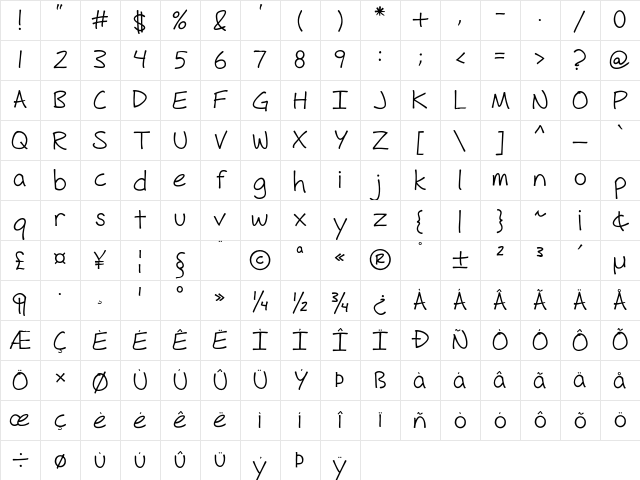
Fh_Hyperbole Regular Free Font
Fh_Hyperbole Regular
Foundry: Dan Meyer (Fictionalhead)
Designer: Dan Meyer (Fictionalhead)
Design Context for Fh_Hyperbole
Fh_Hyperbole is a composed and adaptable typeface that performs quietly and consistently across a wide range of design contexts.
Pro Tip: Use Fh_Hyperbole in both headline and body roles to test its range before committing to a single application.